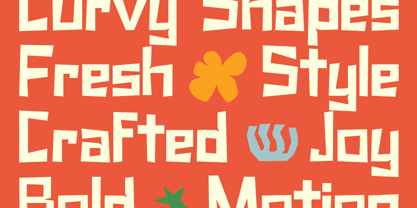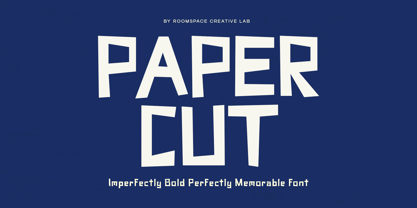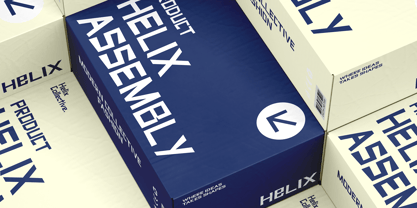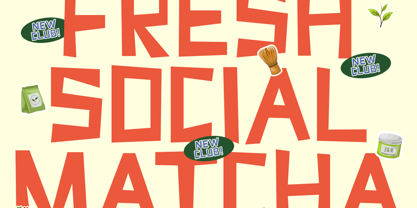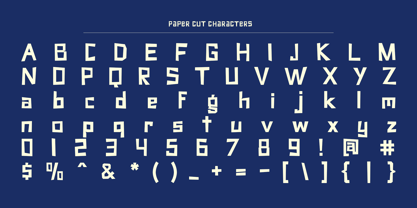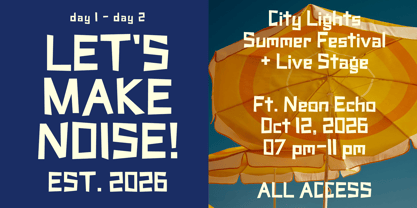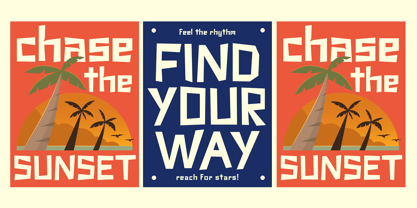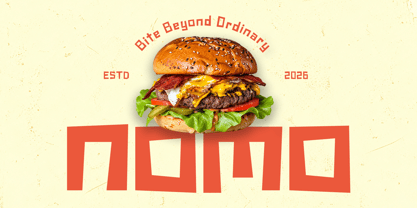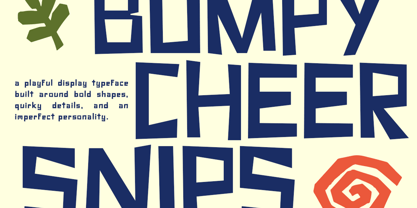
Paper Cut
The Paper Cut Font Family was designed by Bakhrudin Ja'far and published by Jafar07. Paper Cut contains 1 styles. More about this family
Paper Cut is a bold, playful display typeface designed with irregular proportions, geometric shapes, angular cuts, and distinctive letter details. Its unconventional forms and imperfect construction create strong, expressive headlines with a quirky, handmade personality while maintaining clear, recognizable letterforms.
Designed primarily for display, Paper Cut is ideal for creative branding projects that require a bold, energetic typographic presence. Whether you're creating logos, product packaging, posters, festival graphics, editorial layouts, food and beverage branding, advertising visuals, social media graphics, or other creative designs, this typeface brings a playful character and strong visual impact to every composition.
Its distinctive and irregular letterforms make Paper Cut especially suitable for expressive typography, creative headlines, retro-inspired graphics, and contemporary visual identities where type needs to become an important part of the overall design.